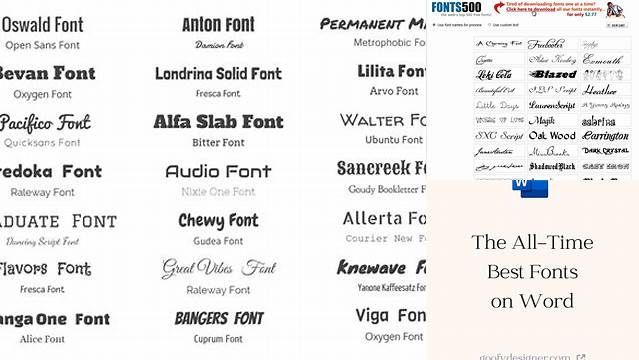
Free Fonts For Microsoft Word: Your Guide
Hey everyone! Are you looking to jazz up your Microsoft Word documents with some cool new fonts? Well, you've come to the right place! We're diving deep into the world of free fonts for Microsoft Word, showing you where to find them, how to install them, and even some tips on choosing the perfect font for your project. Whether you're a student, a professional, or just someone who loves to make things look pretty, this guide has something for you. So, grab a cup of coffee, and let's get started!
When you explore these sites, you'll be amazed at the options. From the sleek lines of a modern sans-serif to the elegant swirls of a handwritten script, the possibilities are endless. Take your time, browse around, and find fonts that speak to you. Remember, the right font can completely transform the look and feel of your document.
Remember, the right font can make all the difference. Whether you're creating a resume, a school project, or a business report, using the right fonts enhances your document's appearance and improves readability. Don't be afraid to experiment, be creative, and most importantly, have fun! Happy font hunting, everyone!